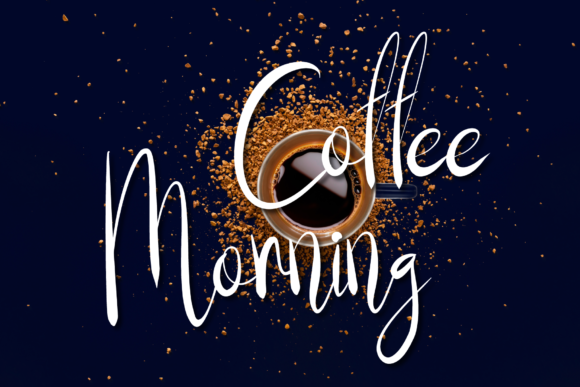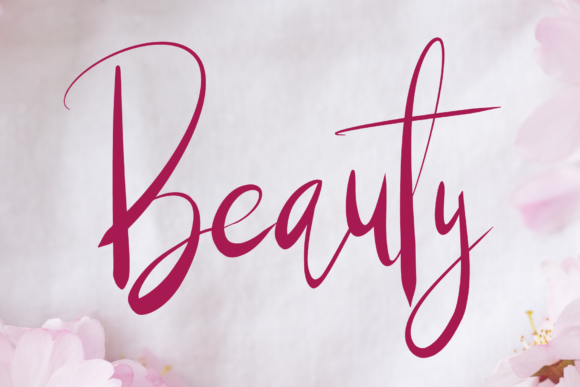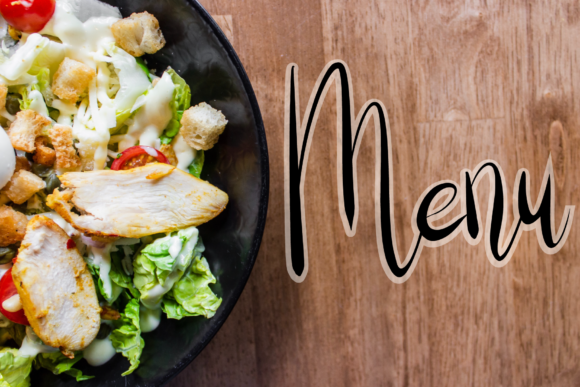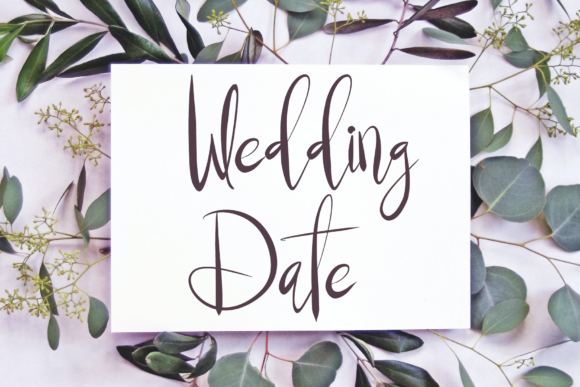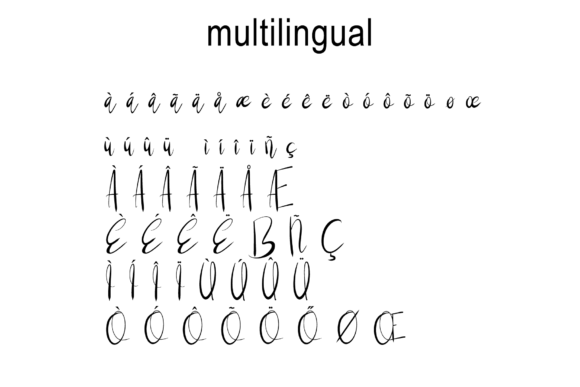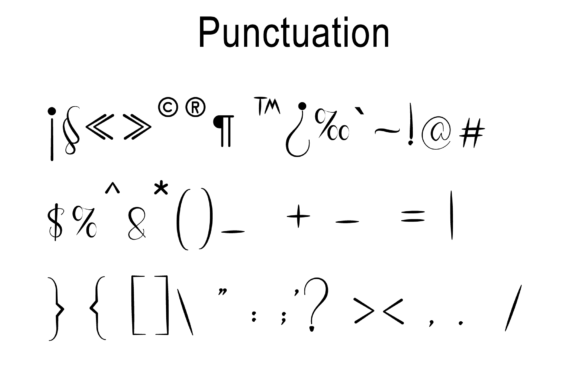
Introducing Boost Now Font: Elevate Your Designs with a Beautiful Handwritten Style
In the world of design, fonts play a crucial role in conveying the tone and personality of a project. Whether you’re a professional designer or a crafty DIY enthusiast, finding the right font can make all the difference. If you’re on the hunt for a beautiful and relaxed handwritten font, look no further than Boost Now Font. This stunning typeface is perfect for a wide range of design needs, from business cards and wedding invitations to banner ads and more.
What Makes Boost Now Font So Special?
Boost Now Font is a carefully crafted handwritten font that exudes a sense of elegance and sophistication. Its relaxed and natural feel makes it perfect for designs that require a personal touch. The font’s unique characteristics include:
- Beautifully crafted letterforms: Each letter in Boost Now Font has been meticulously designed to create a cohesive and harmonious look.
- Relaxed and natural feel: The font’s handwritten style gives it a friendly and approachable feel, making it perfect for designs that require a personal touch.
- Highly versatile: Boost Now Font can be used for a wide range of design projects, from print materials to digital applications.
Perfect for a Variety of Design Needs
Boost Now Font is an incredibly versatile typeface that can be used for various design projects, including:
Why Choose Boost Now Font?
With so many fonts available, why choose Boost Now Font? Here are just a few reasons:
- Unique and stylish: Boost Now Font offers a fresh and stylish alternative to traditional fonts.
- Easily readable: The font’s clear and natural letterforms make it easy to read, even at small sizes.
- High-quality design: Boost Now Font has been carefully crafted to ensure a high level of quality and consistency.
Boost Now Font is a beautiful and relaxed handwritten font that’s perfect for designers and crafters looking to add a personal touch to their projects. With its unique and stylish letterforms, highly versatile design, and ease of use, it’s an excellent choice for a wide range of design needs. Whether you’re creating business cards, wedding invitations, or banner ads, Boost Now Font is sure to elevate your designs and make them stand out from the crowd.